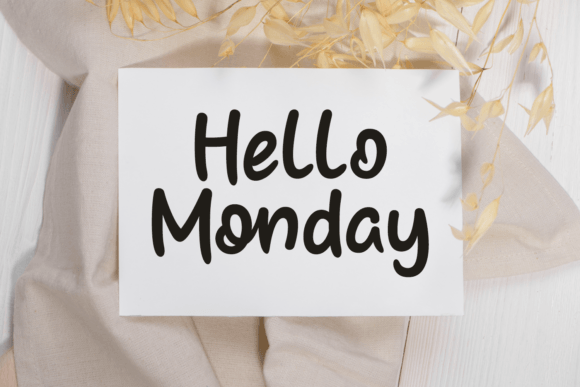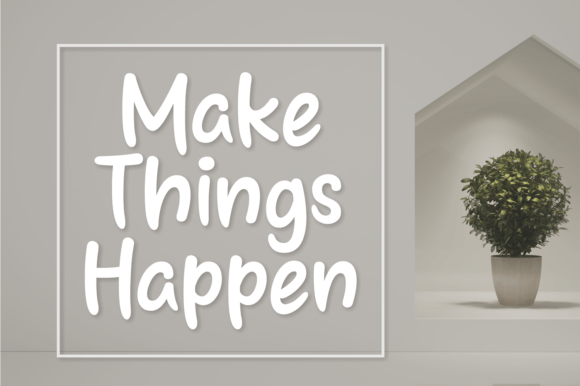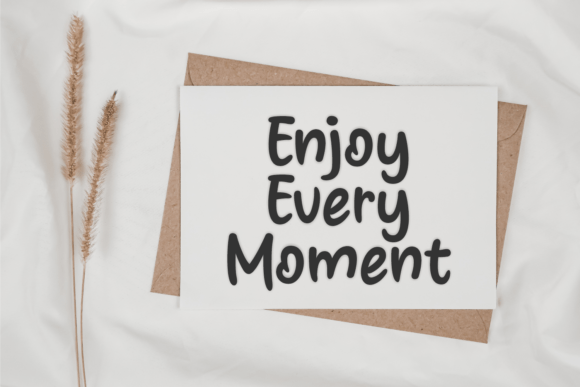
Love at First Sight: The Allure of Beauty Sharpie Font
Remember the moment when you first laid eyes on the perfect font for your wedding invitation? For many designers, it’s a moment that sparks joy and sets the tone for a creative project. It’s a moment when everything falls into place, and the words seem to dance across the page. For us, that moment was when we discovered the Beauty Sharpie Font – a beautiful display font with a handwritten style that exudes love and warmth.
With its elegant, flowing lines and whimsical charm, Beauty Sharpie Font is more than just a font – it’s a way to express love, celebrate connection, and cherish the beauty of life. Whether you’re a designer looking for the perfect font for your next project or a small business owner seeking to rebrand your image, Beauty Sharpie Font is a valuable addition to your design arsenal. Its versatility makes it perfect for a wide range of applications, from wedding invitations to social media graphics.
Beauty Sharpie Font Key Features
- Unique Characteristics: Beauty Sharpie Font is designed to mimic the look of a Sharpie marker, with bold, vibrant lines and a textured appearance.
- Font Style: The font is available in both regular and bold weights, making it suitable for a variety of applications, from casual to formal.
Beauty Sharpie Font Review
I recently had the chance to work with the Beauty Sharpie Font, and I must say it’s a mixed bag. There are some things that I really like about it, and some things that left me feeling a bit underwhelmed.
- The font’s bold and playful personality is perfect for adding a touch of whimsy to designs.
- The sharp, clean lines give the font a modern feel that’s hard to resist.
- The font’s versatility means it can be used for a wide range of projects, from greeting cards to social media graphics.
- The font can feel a bit over-the-top in some cases, making it difficult to use in more subtle designs.
- The font’s lack of flexibility in terms of size and style can make it feel a bit restrictive.
- The font’s overall aesthetic can feel a bit too “trendy” for some projects, making it difficult to use in more timeless designs.
Overall, I’d say the Beauty Sharpie Font is a solid choice for designers looking to add a touch of personality to their projects. While it has its limitations, the font’s unique personality and versatility make it a great addition to any design arsenal.
The Beauty Sharpie font is ideal for creating bold, playful, and eye-catching text.
Use it for headings, titles, and captions to add a touch of personality to your designs.
For best results, use the font in conjunction with bold, bright colors and creative graphics.
Alternatives to Beauty Sharpie Font
Great Vibes is a beautiful, cursive script font that is perfect for adding a touch of elegance to your designs. It has a similar feel to Beauty Sharpie Font, but with a more refined and sophisticated look.
Use Great Vibes for: Wedding invitations, quotes, and any design that requires a romantic and elegant touch.
Comparison to Beauty Sharpie Font: Great Vibes has a more polished and refined look compared to Beauty Sharpie Font, which has a more rough and edgy feel.
Carolyna Pro is a modern and elegant script font that is perfect for adding a touch of sophistication to your designs. It has a similar feel to Beauty Sharpie Font, but with a more contemporary and sleek look.
Use Carolyna Pro for: Fashion branding, luxury products, and any design that requires a high-end and sophisticated look.